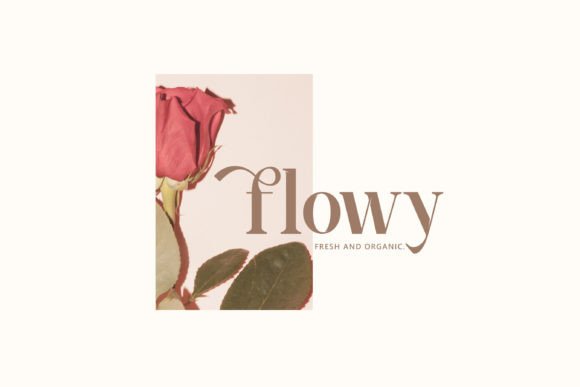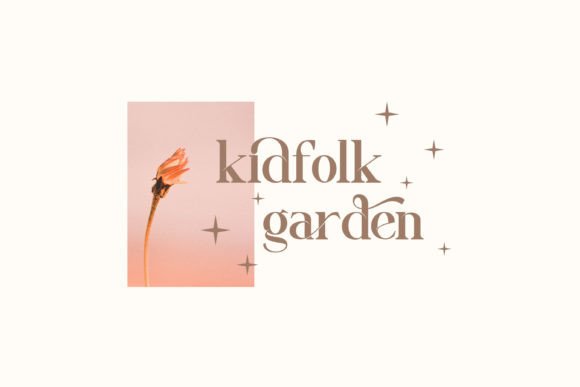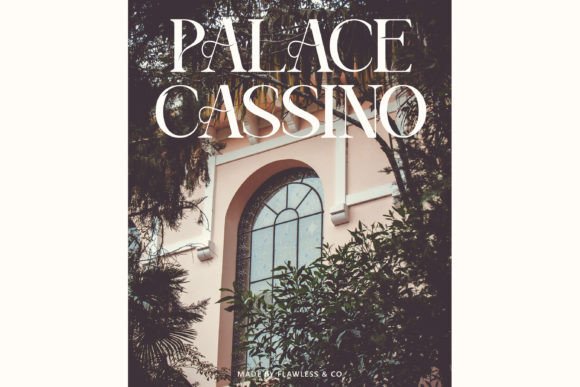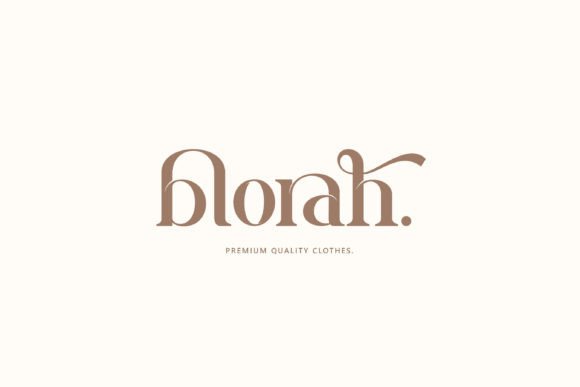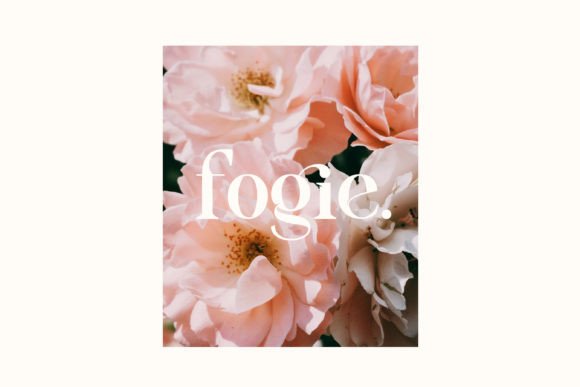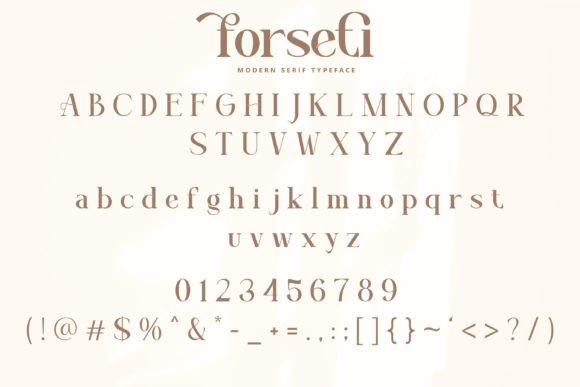
Introduction to Forseti Font
Forseti is a sophisticated, charming serif font with a fashionable touch.
Specially designed for luxury, elegant, feminine projects, this font is perfectly suitable for creating modern, chic designs .
Key Features of Forseti Font